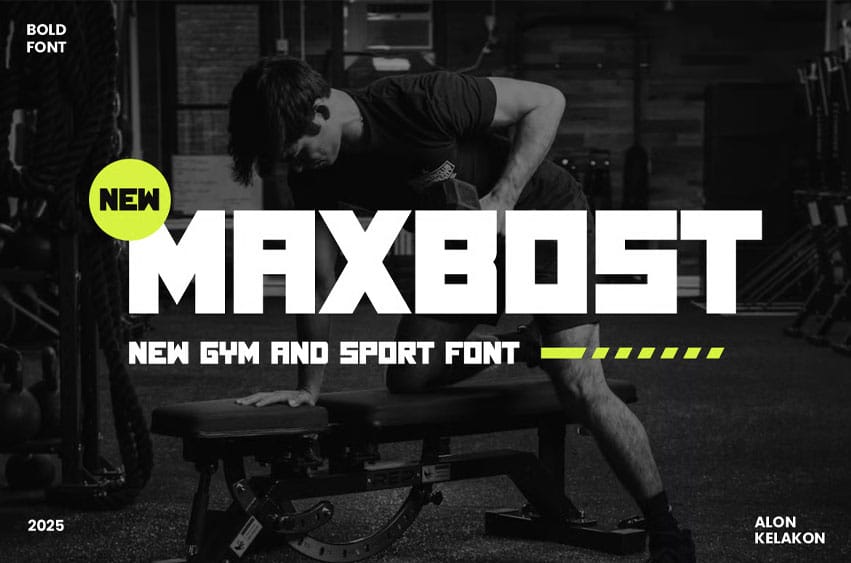
Maxbost Font Gym & Sport Font. Maxbost is a bold, all-caps display font designed for high-impact projects. Inspired by the dynamic world of sports and gym culture, its strong, blocky letterforms make a powerful statement.
This font is perfect for headlines, logos, posters, and any design that needs a robust, athletic feel. Maxbost comes with a complete set of uppercase and lowercase letters, numbers, and punctuation, giving you the versatility to create professional and eye-catching designs.
Maxbost is ideal for:
- Gym and fitness branding
- Sports-themed graphics
- YouTube thumbnails
- Poster and flyer design
- Website headers
Bring a bold, powerful energy to your next project with Maxbost.